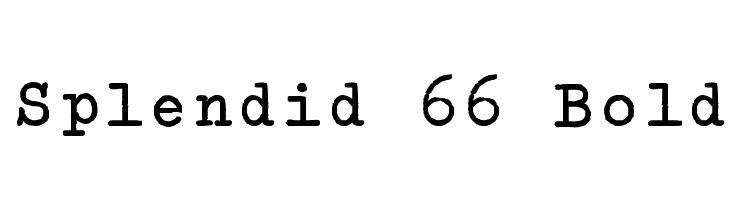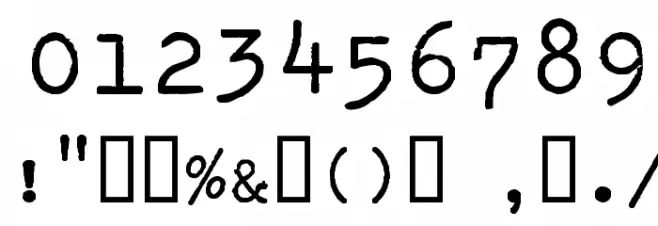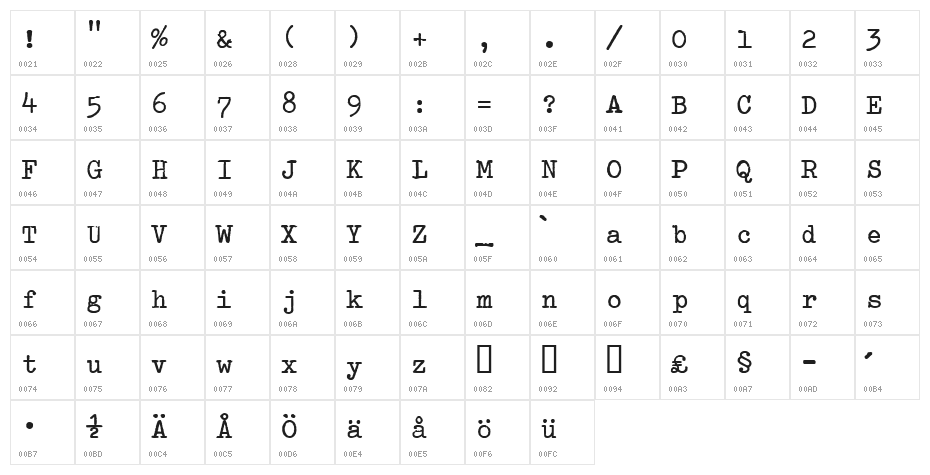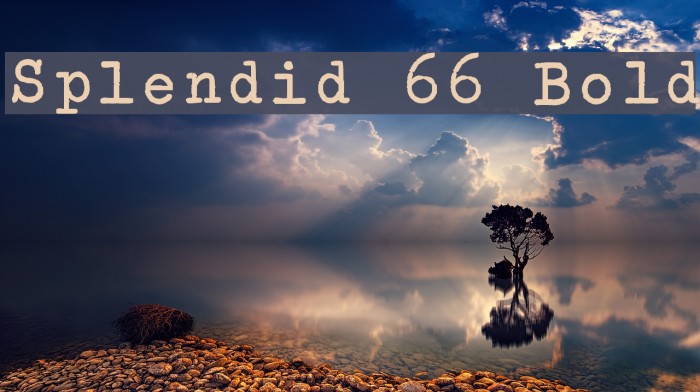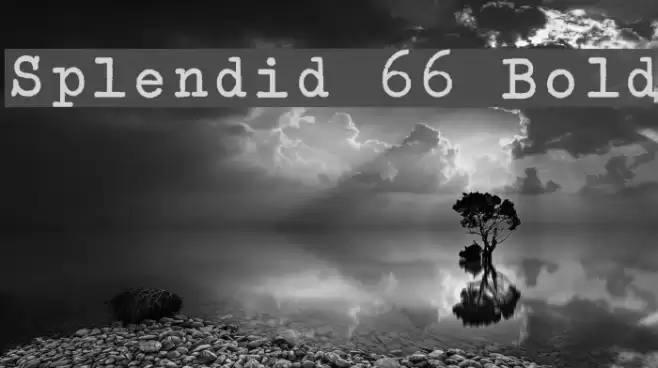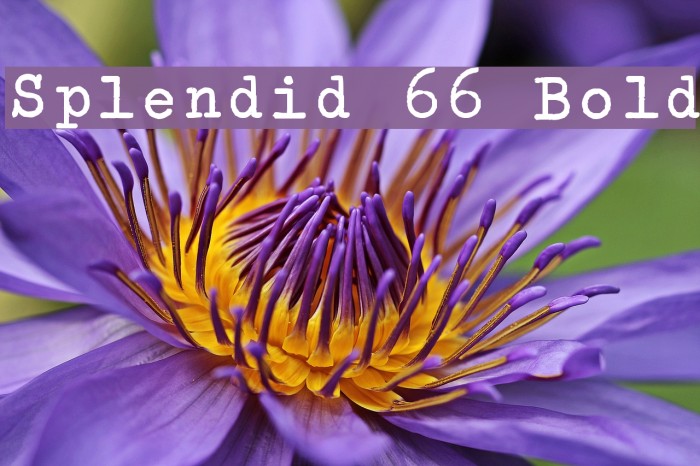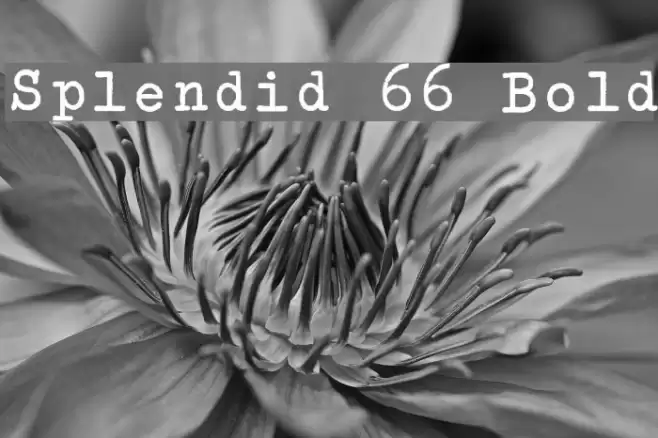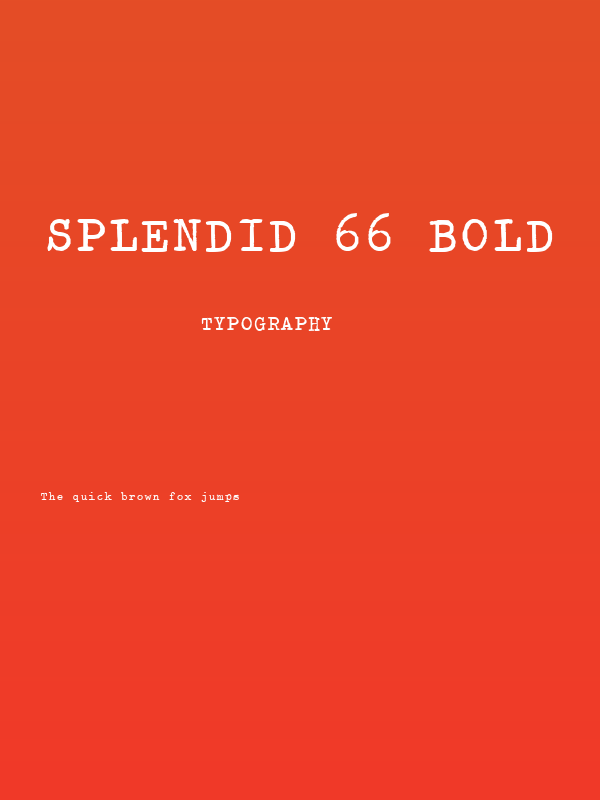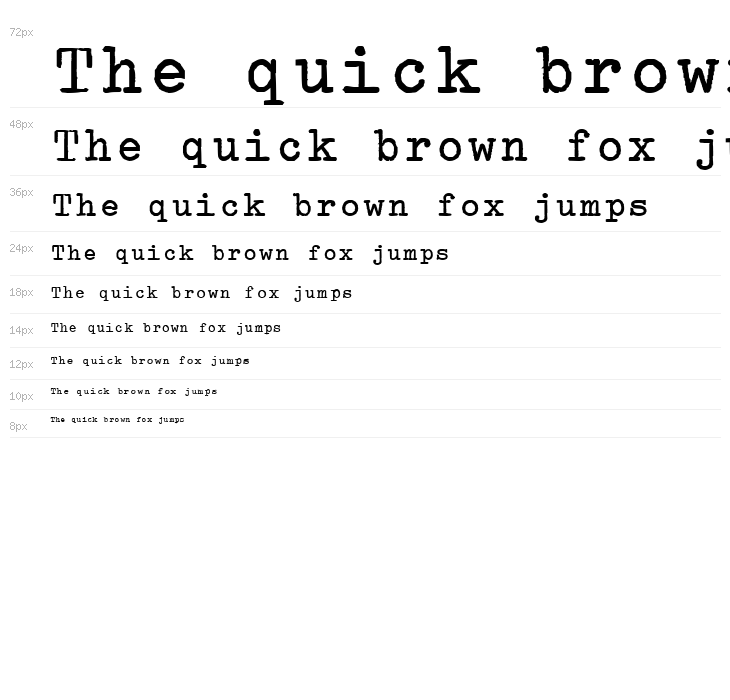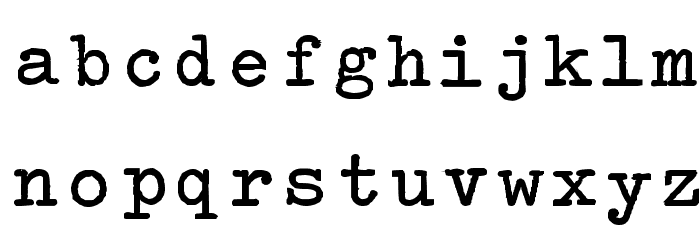
Splendid 66 Bold Font
Splendid 66 Bold Description
This font features a bold, slab serif style with a distinct typewriter aesthetic. The characters are robust and have a vintage feel, reminiscent of classic typewriter fonts. The uppercase letters are strong and commanding, while the lowercase letters maintain a consistent weight and style. Numbers and special characters are clearly defined, adding to the font's versatility. The overall appearance is both nostalgic and functional, making it suitable for a variety of design projects that require a touch of retro charm.
| Proposed Projects | Ideal for retro-themed designs, typewriter-style documents, posters, and branding that requires a classic touch. |